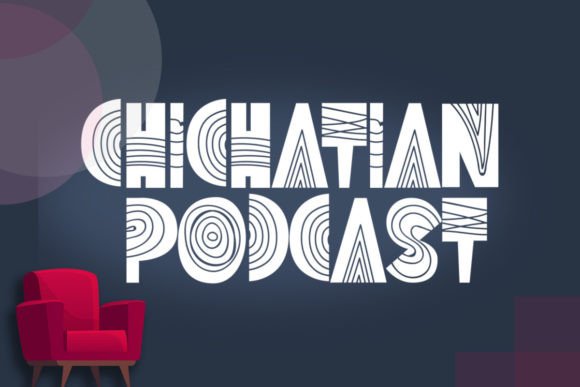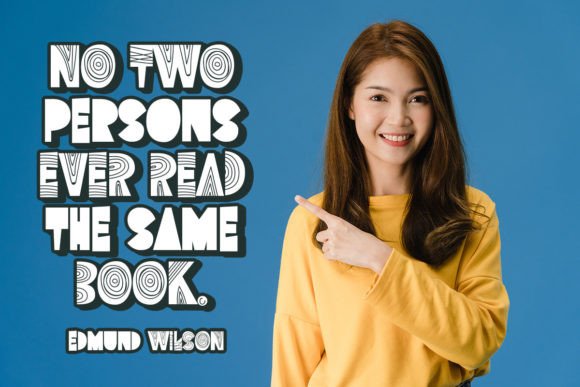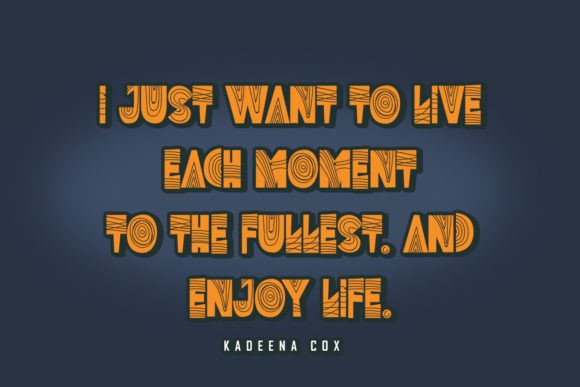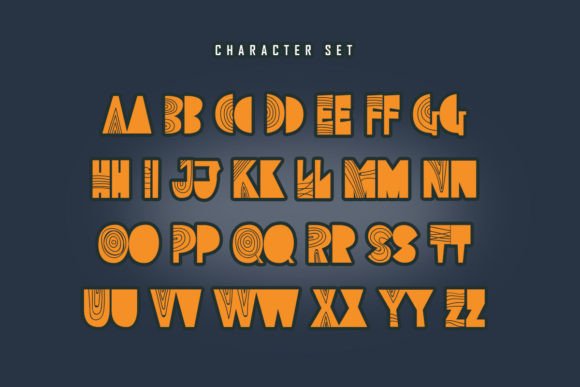
Introduction to Gabiana Font
Have you ever found yourself staring at a blank canvas, searching for the perfect font to bring your creative project to life? I know I have. It’s that moment of frustration, when every font seems to fall short of the playful, whimsical vibe you’re going for. But what if I told you that there’s a font that can change all that?
Enter the Gabiana Font, a high-quality display font that’s perfect for designers looking to add a fun and cool touch to their designs. Whether you’re working on a cartoon-related project, creating a children’s game, or just need a font that screams “playful,” Gabiana Font is the perfect design resource for you.
Key Features of Gabiana Font
- High-quality design for creative projects, perfect for designers and artists.
- Unique, elegant design with a modern touch, making it suitable for a variety of creative projects, from branding to digital art.
Honest Review: Gabiana Font
I recently had the chance to experiment with the Gabiana Font for a creative project, and I must say it’s a great addition to my design resource collection. The high quality of this font is immediately noticeable, making it perfect for a wide range of applications.
- High quality font with a unique aesthetic
- Wide range of applications
- Limited character set, which may not be suitable for complex projects
- Not as versatile as some other fonts in its category
Overall, I’m impressed with Gabiana Font and would definitely recommend it to fellow designers. Its unique aesthetic and high quality make it a valuable addition to any design resource collection.
Tips for Getting the Most Out of Gabiana Font
Use the Gabiana Font in combination with a transparent background to create a high-quality design. Experiment with different font sizes and styles to add visual interest to your project. You can also use the font in conjunction with other design resources to create a unique and cohesive look.
Common Use Cases for Gabiana Font
The Gabiana Font is ideal for creative projects, such as logo design, branding, and advertising. It’s also a great resource for designers looking for a high-quality, free download font.